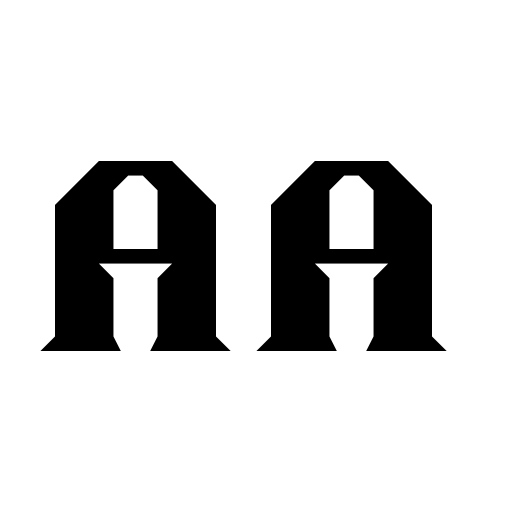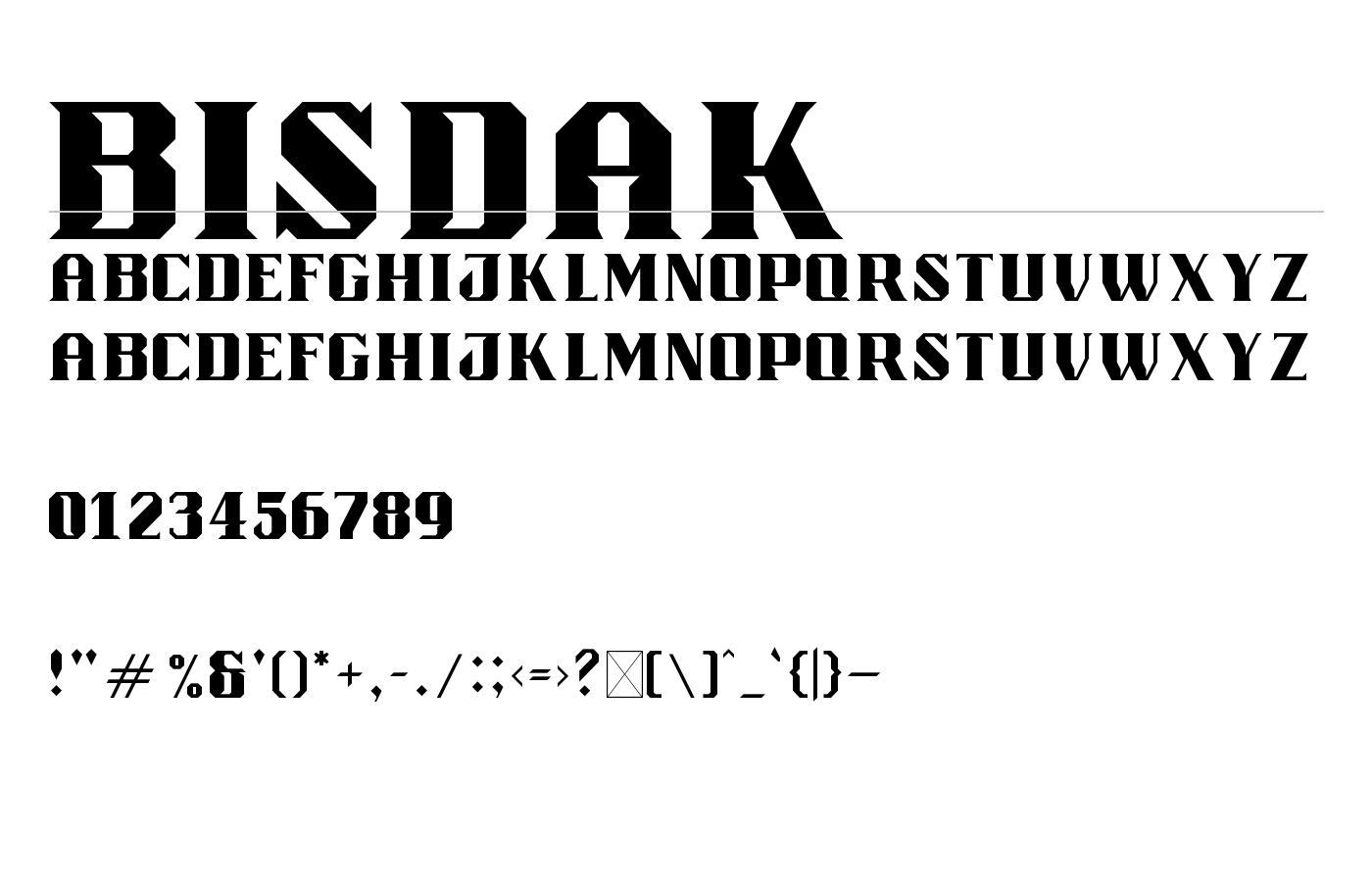
Bisdak Font is a bold, condensed serif typeface with high contrast between thick and thin strokes, featuring sharp, geometric edges and strong vertical emphasis. It carries a vintage, industrial feel that suits headlines, logos, and display uses where a powerful and distinctive presence is needed. This font works best for projects aiming to convey strength, authority, and a classic yet modern aesthetic.
Bisdak Font
About Bisdak Font